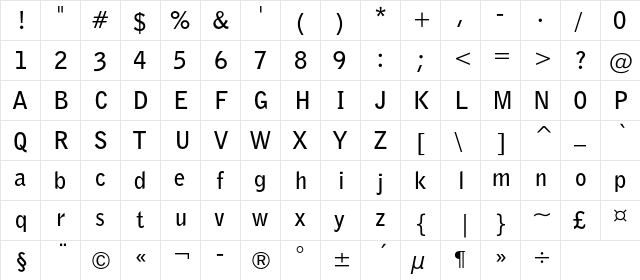
BellGothicC BT Bold
Design Context for BellGothicC BT Typeface
BellGothicC BT has the quiet confidence of well-executed sans-serif typography: versatile, unobtrusive, and dependable at any size. Its bold stroke weight gives it real presence on the page.
A strong choice for UI design, app interfaces, bold signage, and corporate brand systems.
Font Pairing: Use BellGothicC BT for headlines alongside a lighter-weight sans or serif for body copy to establish clear visual hierarchy.
Pro Tip: Pair BellGothicC BT with a display or serif font for headlines — its neutral character makes it an excellent supporting player in complex typographic systems.